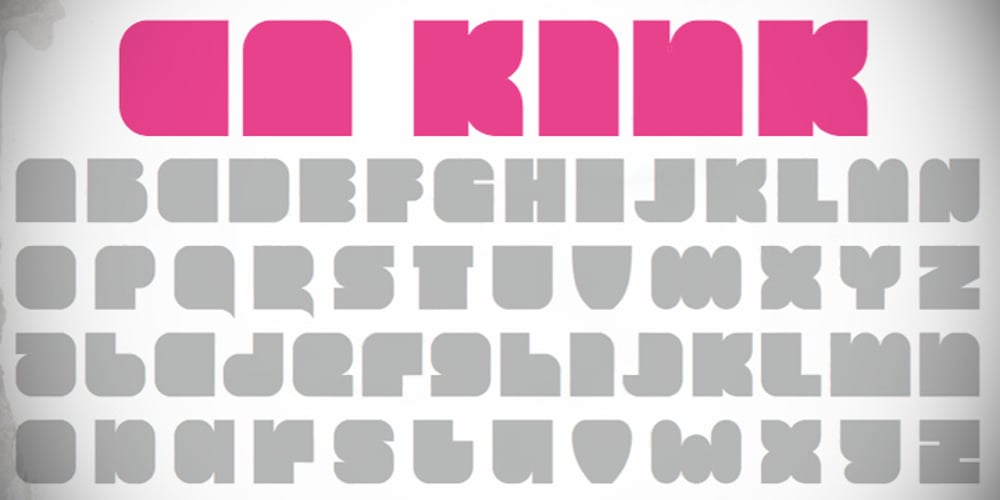
CA Kink
CA Kink font
CA Kink Font Family was designed by Thomas Schostok and published by Cape Arcona Type Foundry. CA Kink contains 1 styles and family package options. CA Kink was originally created for a book cover. Mostly suitable as a headline font and for all kind of “space” themes.